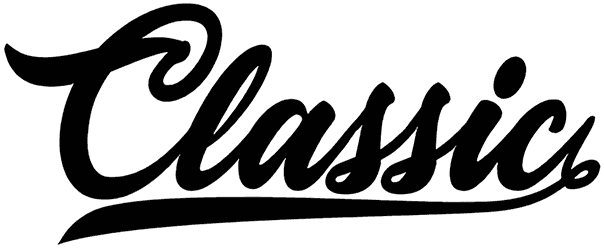
Prepare your words for any design by creating a modern and lovely face for them. This handwritten font, named Citadelle, with its modern, catchy, and smooth lettering, can be a nice chance to adorn your designs with a unique style. Even the absence of numbers doesn’t prevent this surf font from being an admirable illustration for your projects, like posters, mugs, postcards, invitations, and whatnot.